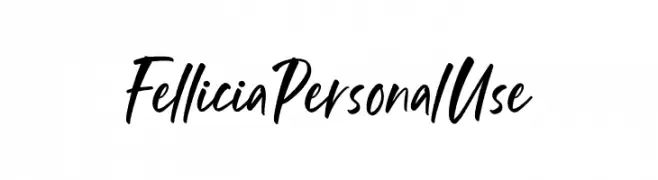
A bold, angular font with sharp, geometric lines and a striking appearance.
A casual handwritten font with fluid, uneven strokes.
A playful, hand-drawn font with a rough, textured appearance.
A bold, hand-drawn font with an expressive, graffiti-like style.
A decorative font with intricate birdhouse illustrations for each character.
A bold, dynamic script font with a brush-like, artistic style.
A modern sans-serif font with clean lines and geometric shapes.
A flowing, cursive script font with elegant, interconnected letters.
A decorative font with a lighthouse motif integrated into each letter, ideal for nautical themes.
An elegant script font with intricate swirls and decorative flourishes.
A bold, expressive script font with a dynamic and artistic style.
An elegant, decorative script font with thin, flowing lines and intricate swirls.
A bold, flowing script font with smooth, connected strokes.
A bold, italicized font with a modern and dynamic style.
A bold, modern sans-serif font with clean lines and strong presence.
A dynamic, thin-stroked font with elegant, expressive forms.
A bold, handwritten font with dynamic and energetic strokes.
A dynamic handwritten font with elongated, slanted characters.
A whimsical and decorative font with elegant swirls and curls.
A geometric and modern font with decorative line elements.
A bold, gothic-inspired font with intricate blackletter details.
A bold, modern typeface with rounded edges and geometric structure.
A modern, ink-saving font with a perforated, dot-based design.
A bold, playful font with a whimsical, cartoonish style.
A hand-drawn, sketch-like font with irregular edges and varying stroke thickness.
A playful, house-themed font with a whimsical and creative design.
A bold, dynamic font with angular strokes and a playful, energetic style.
A playful, bold font with rounded, bubbly characters ideal for cheerful designs.
A bold, playful font with rounded characters and a dynamic slant.
A bold, italicized font with a distressed, playful style.
A bold, playful font with a distressed, hand-cut appearance.
A whimsical, cartoon-like font featuring expressive mouse characters.